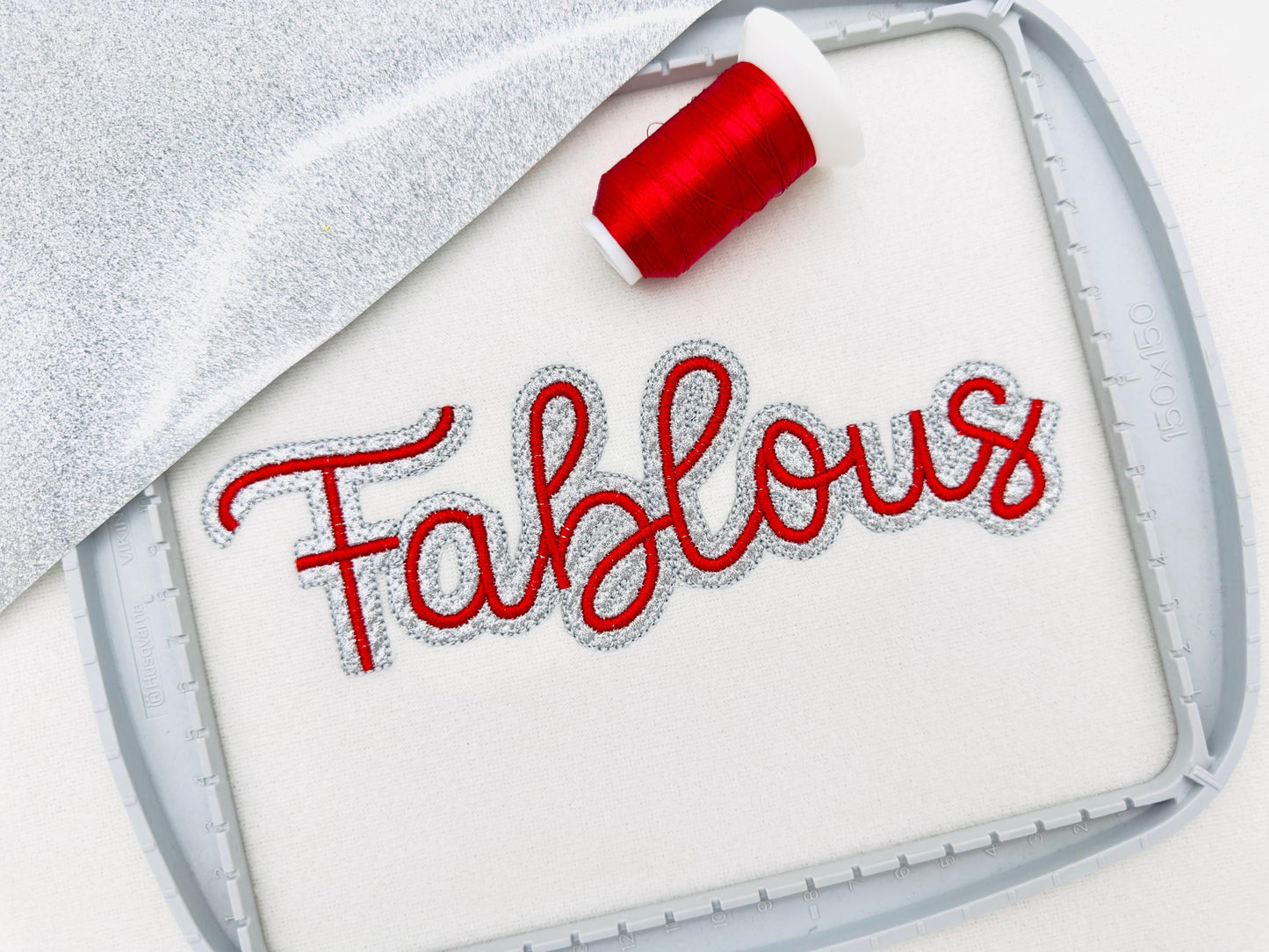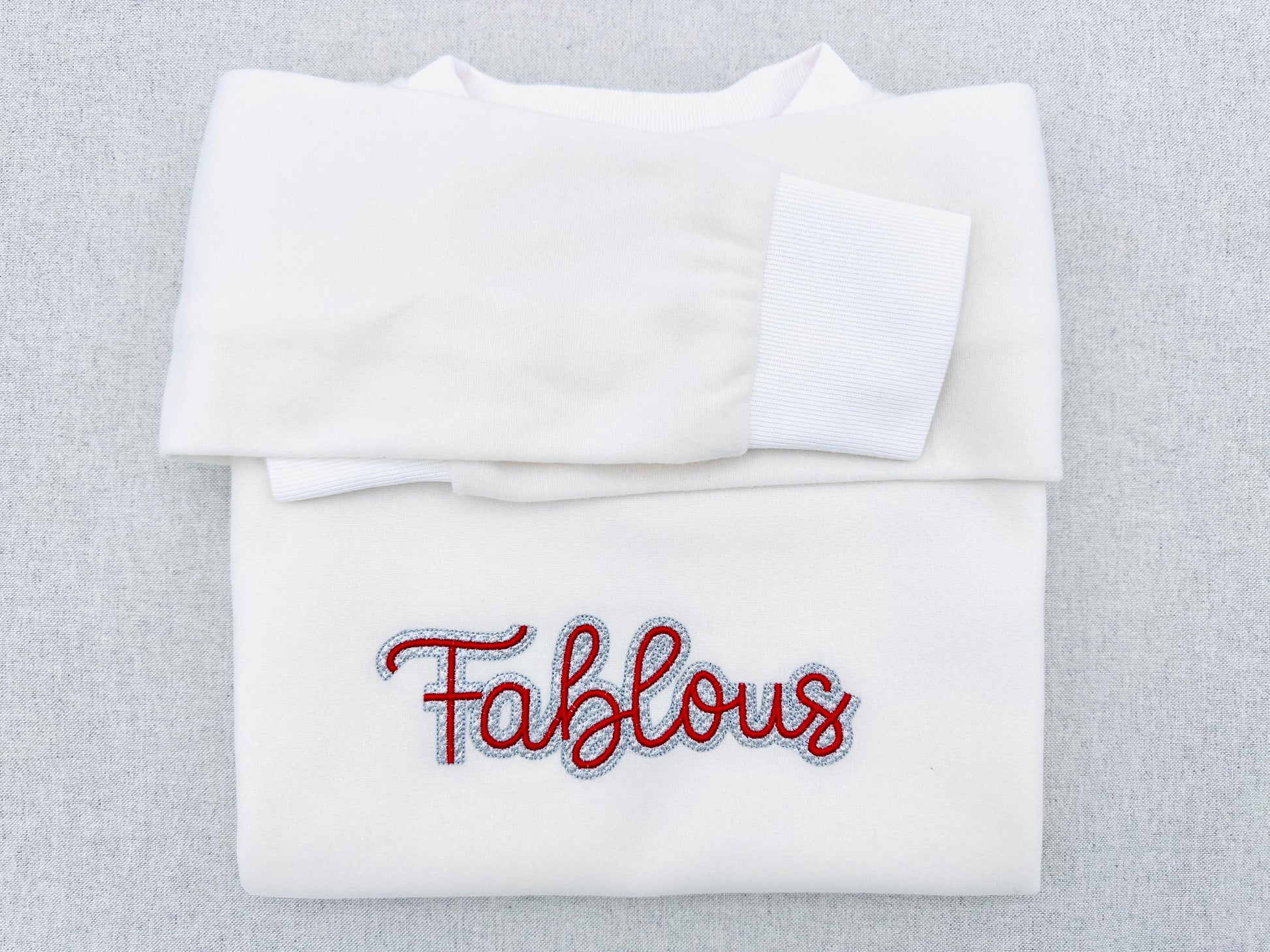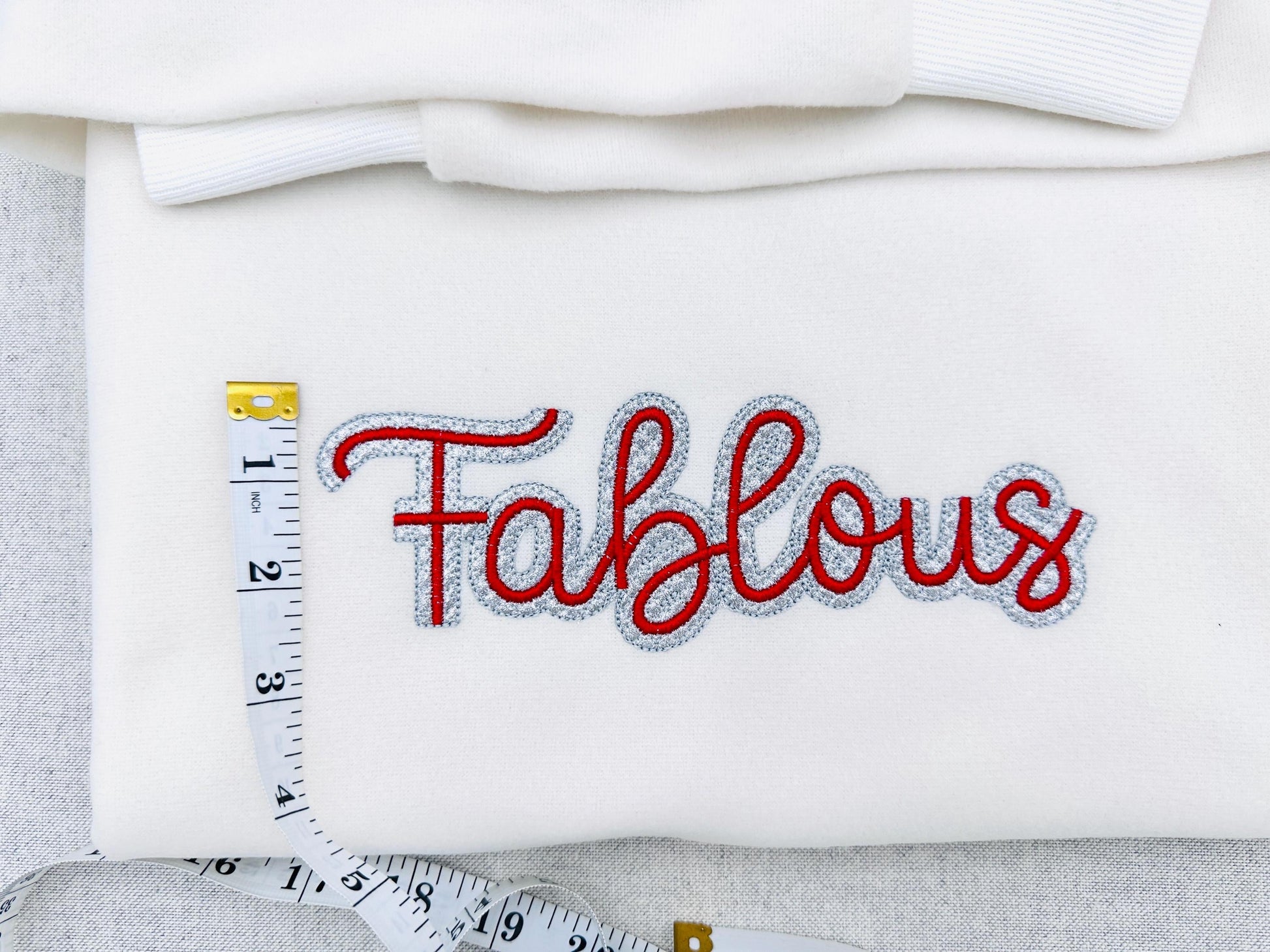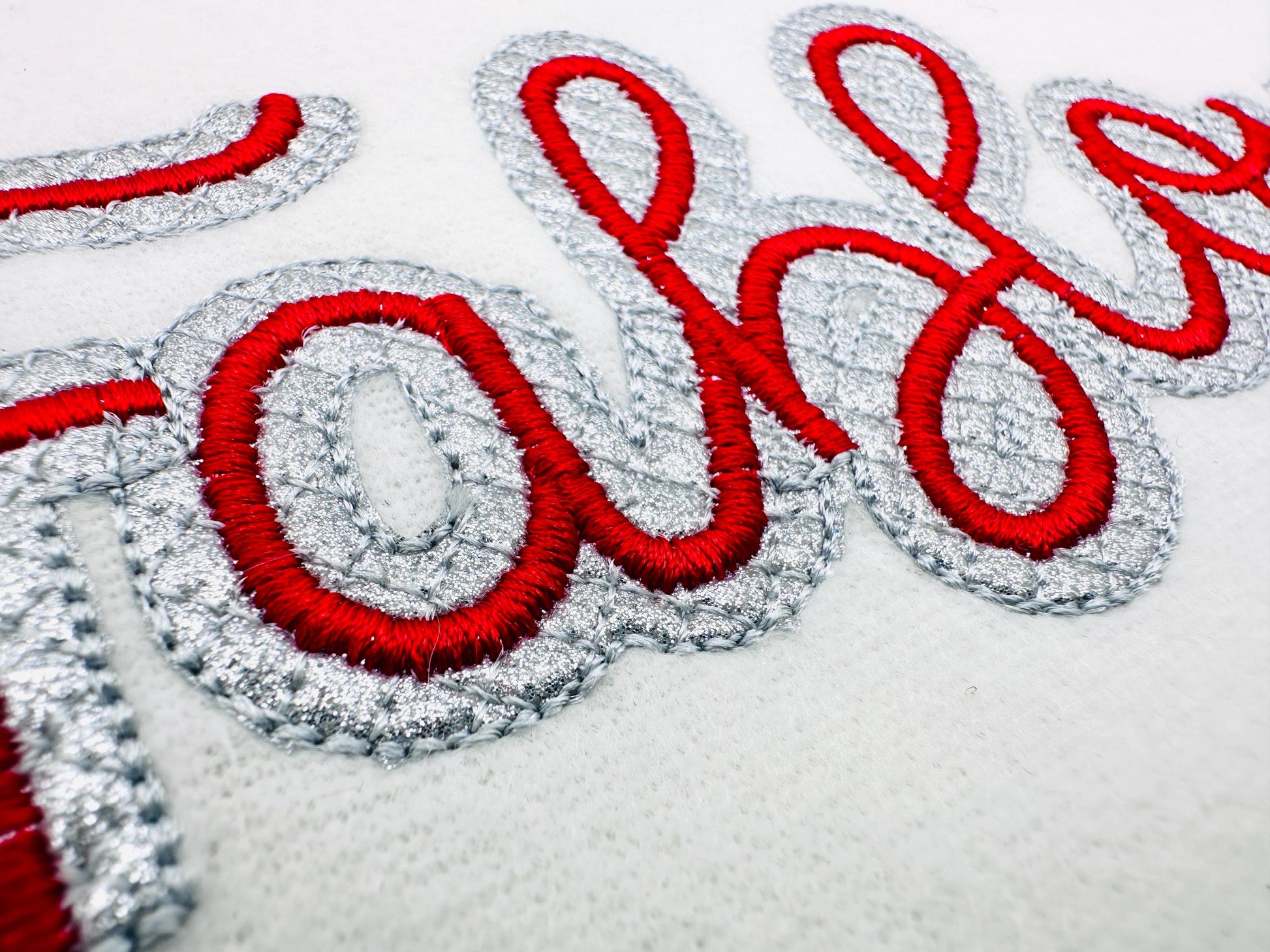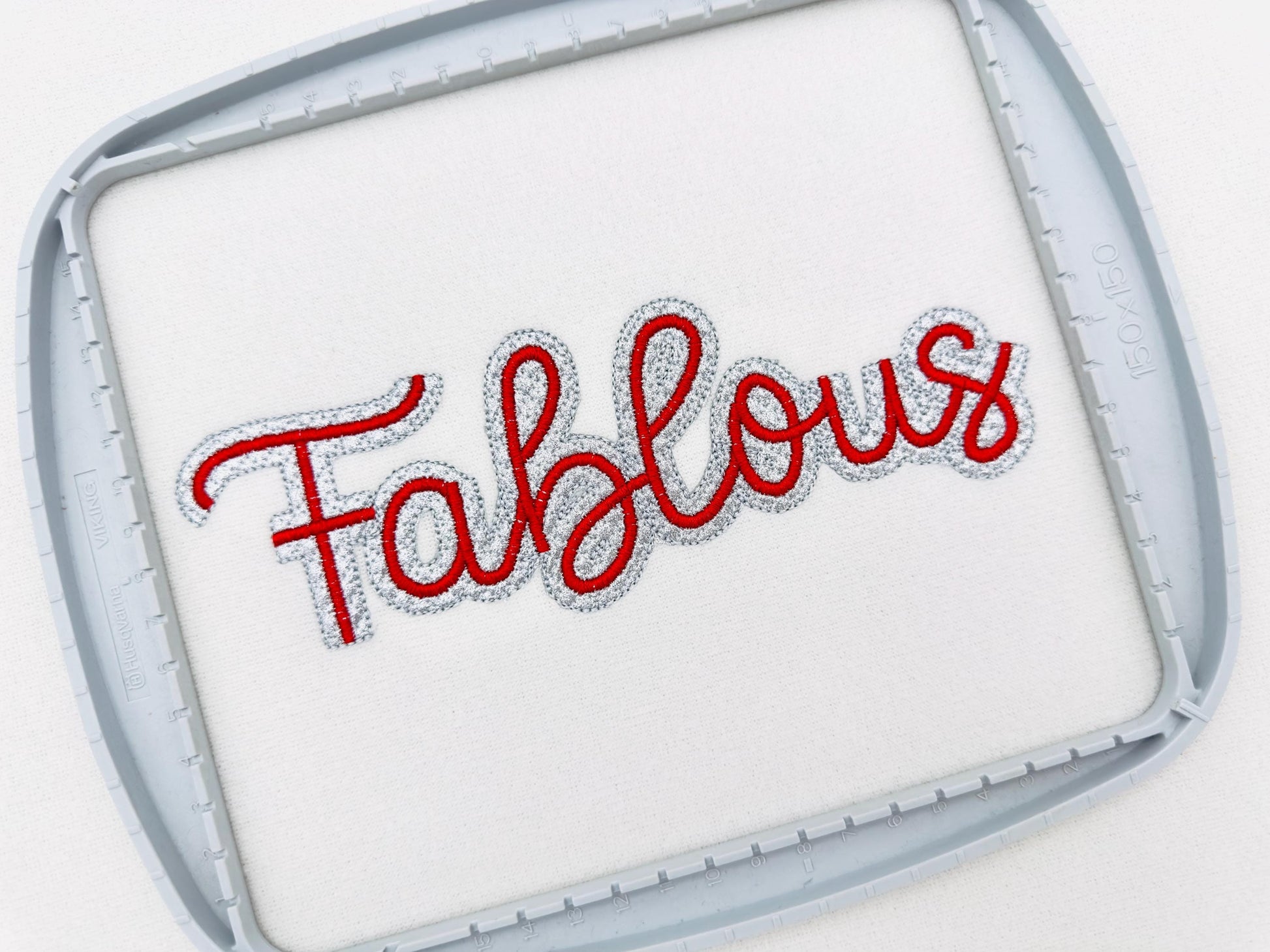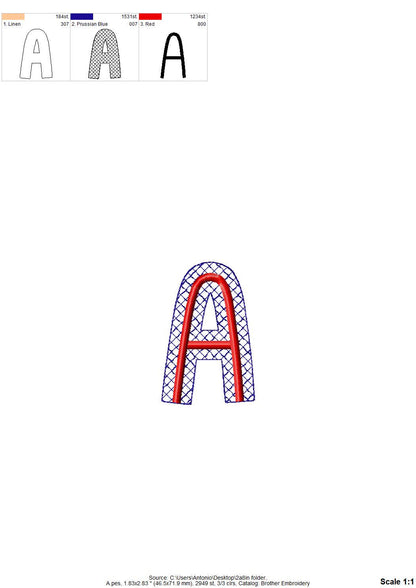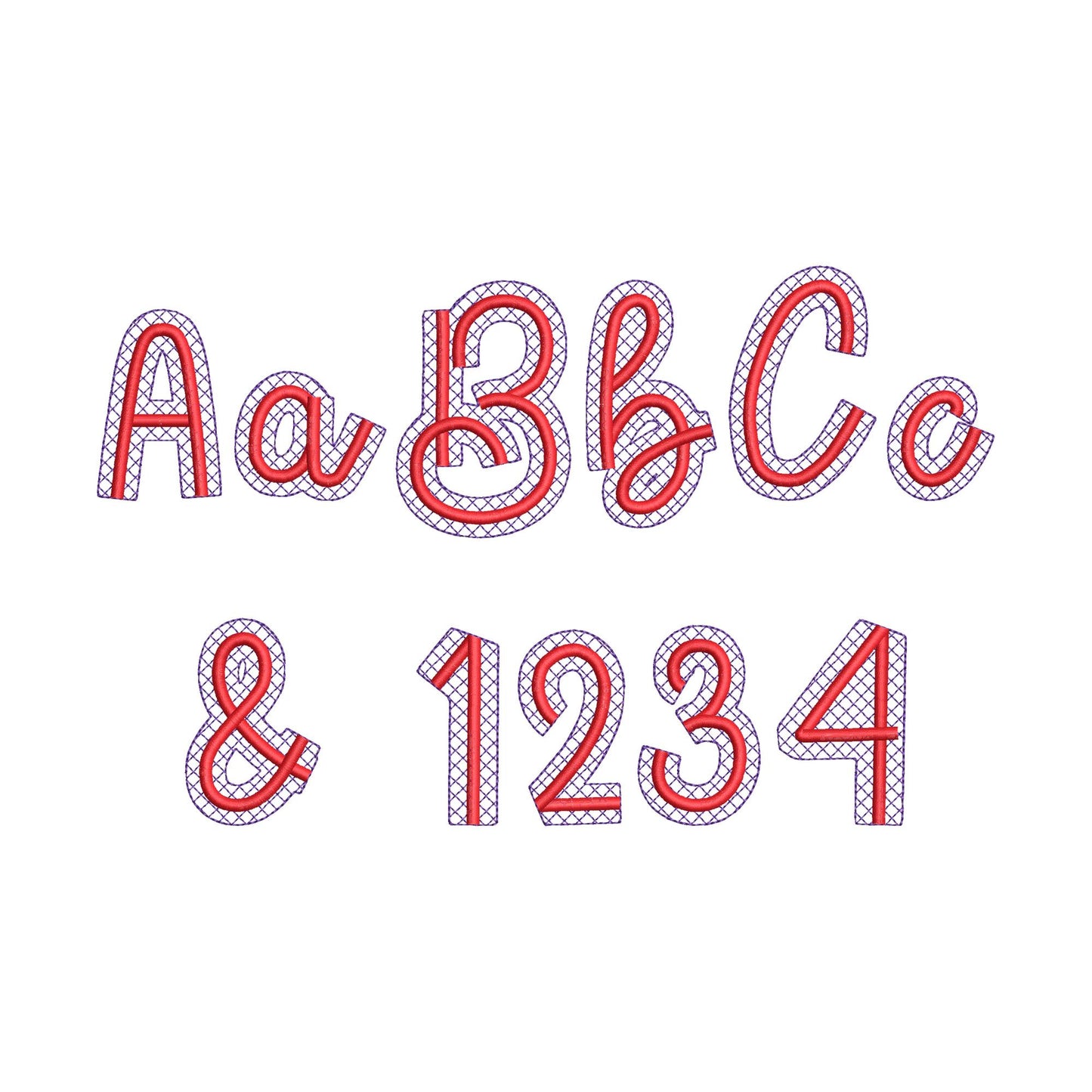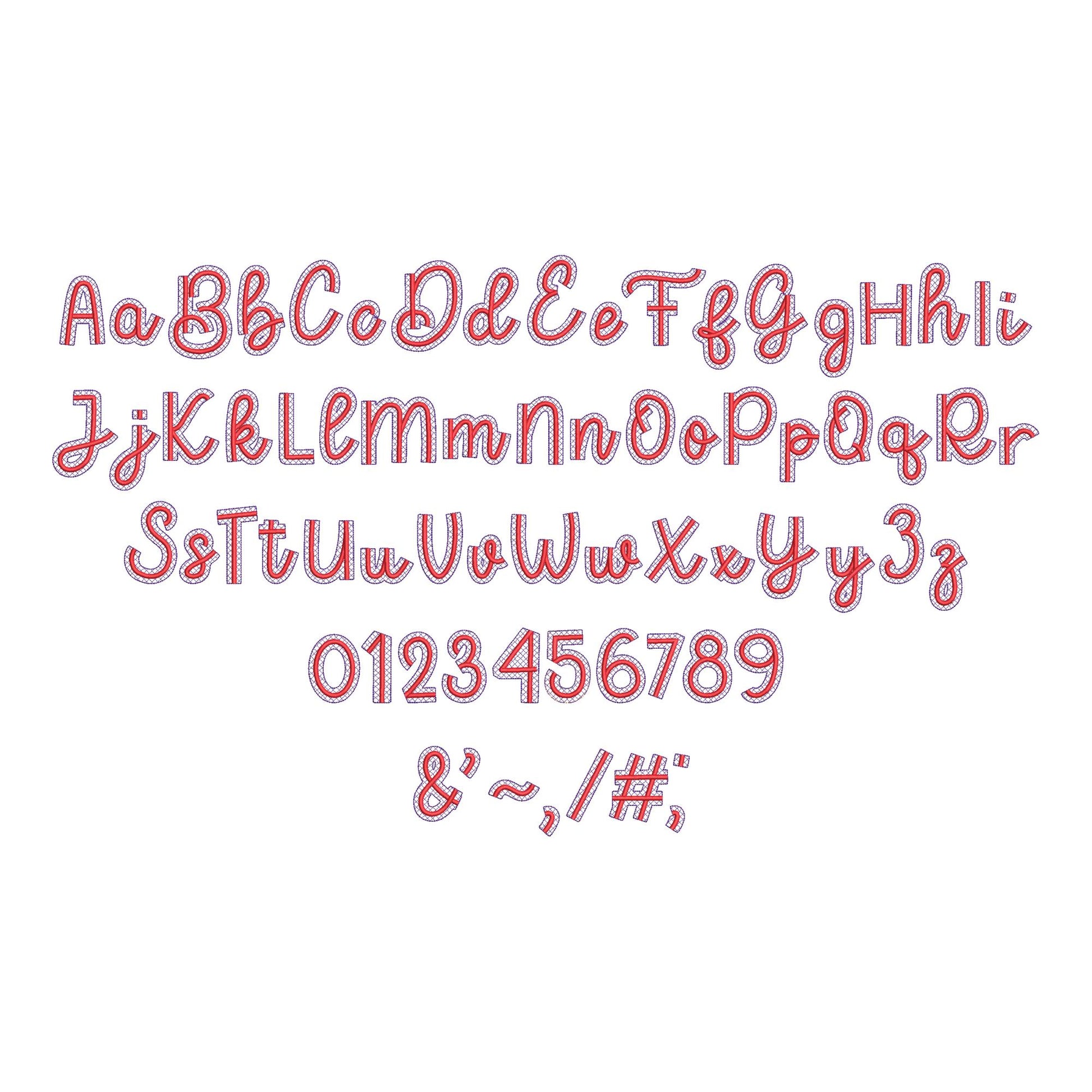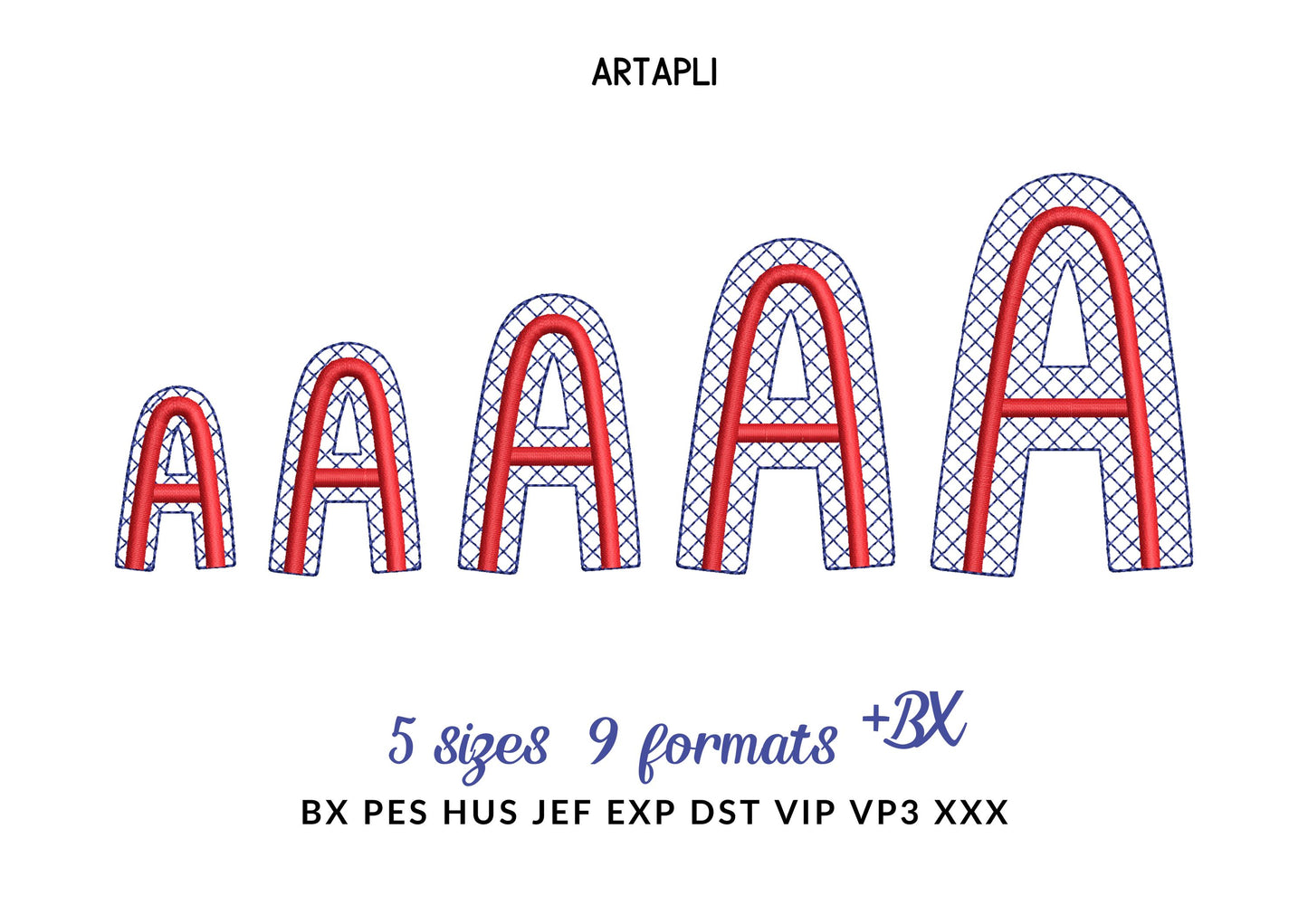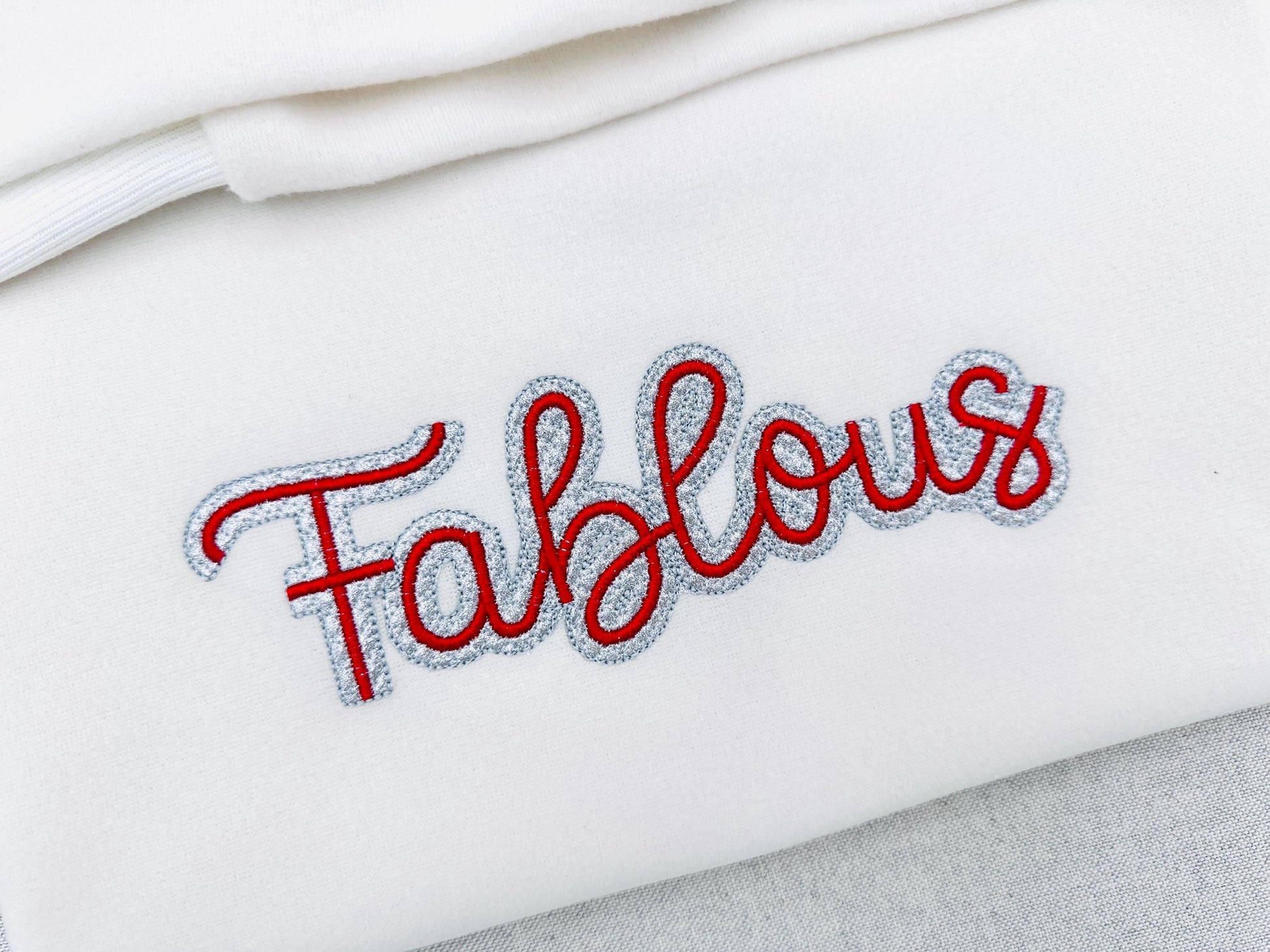
I love the basic font used in this and it will look amazing with the surrounding glitter.
Or click to open the linkA handwritten font with a glitter heat transfer vinyl layer and a satin stitch edge. Sparkly names and monograms on shirts, bags and party outfits.
The letters come in five sizes: 1.6, 2, 2.4, 2.8 and 3.4 inches. Glitter vinyl is stitched down like applique and finished with a satin stitch edge. Includes uppercase and lowercase letters A to Z, numbers 0 to 9 and punctuation.